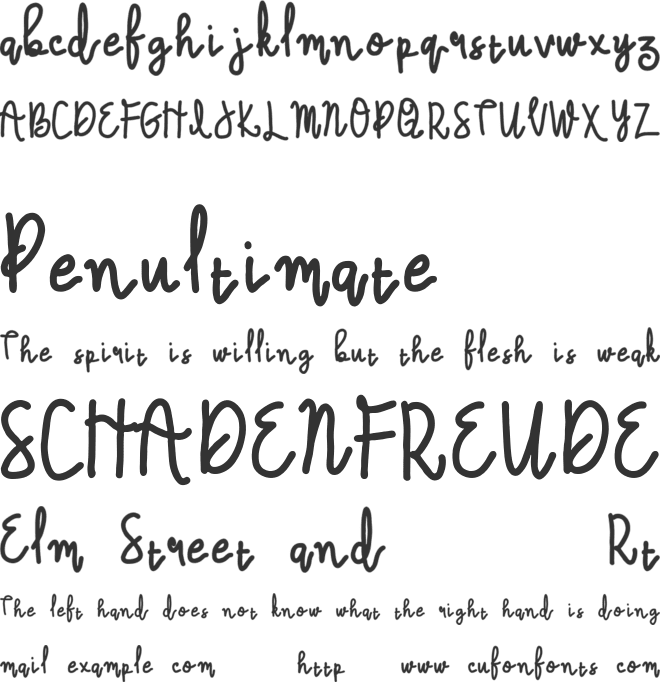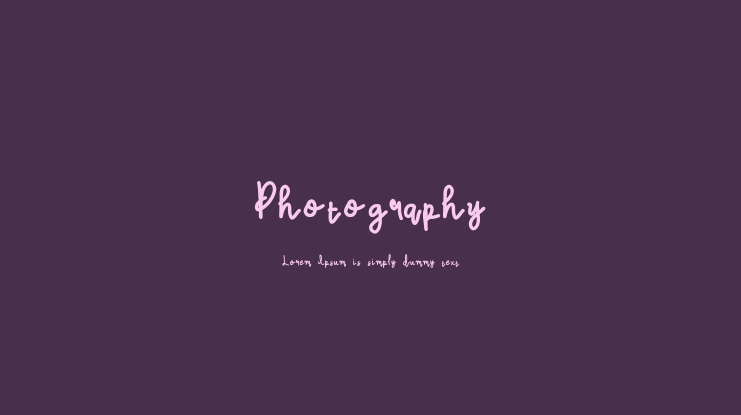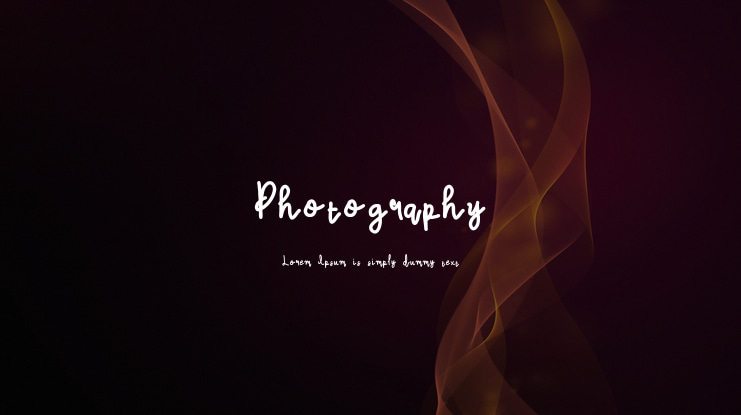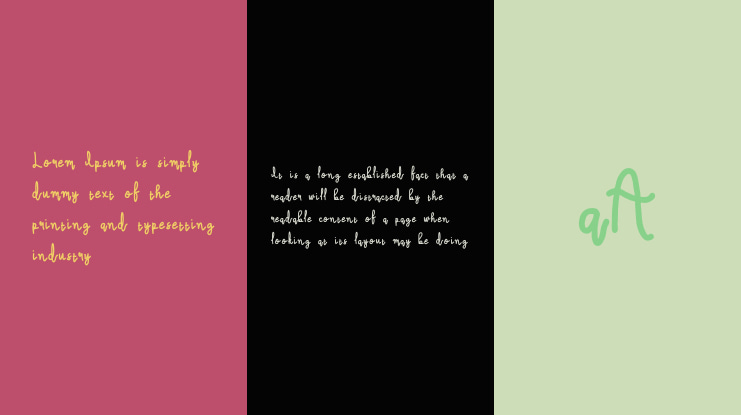
Photography Font
Photography is a cute, sweet and a bit quirky handwritten font. No matter the topic, this font will be an incredibly asset to your fonts’ library, as it has the potential to elevate any creation.